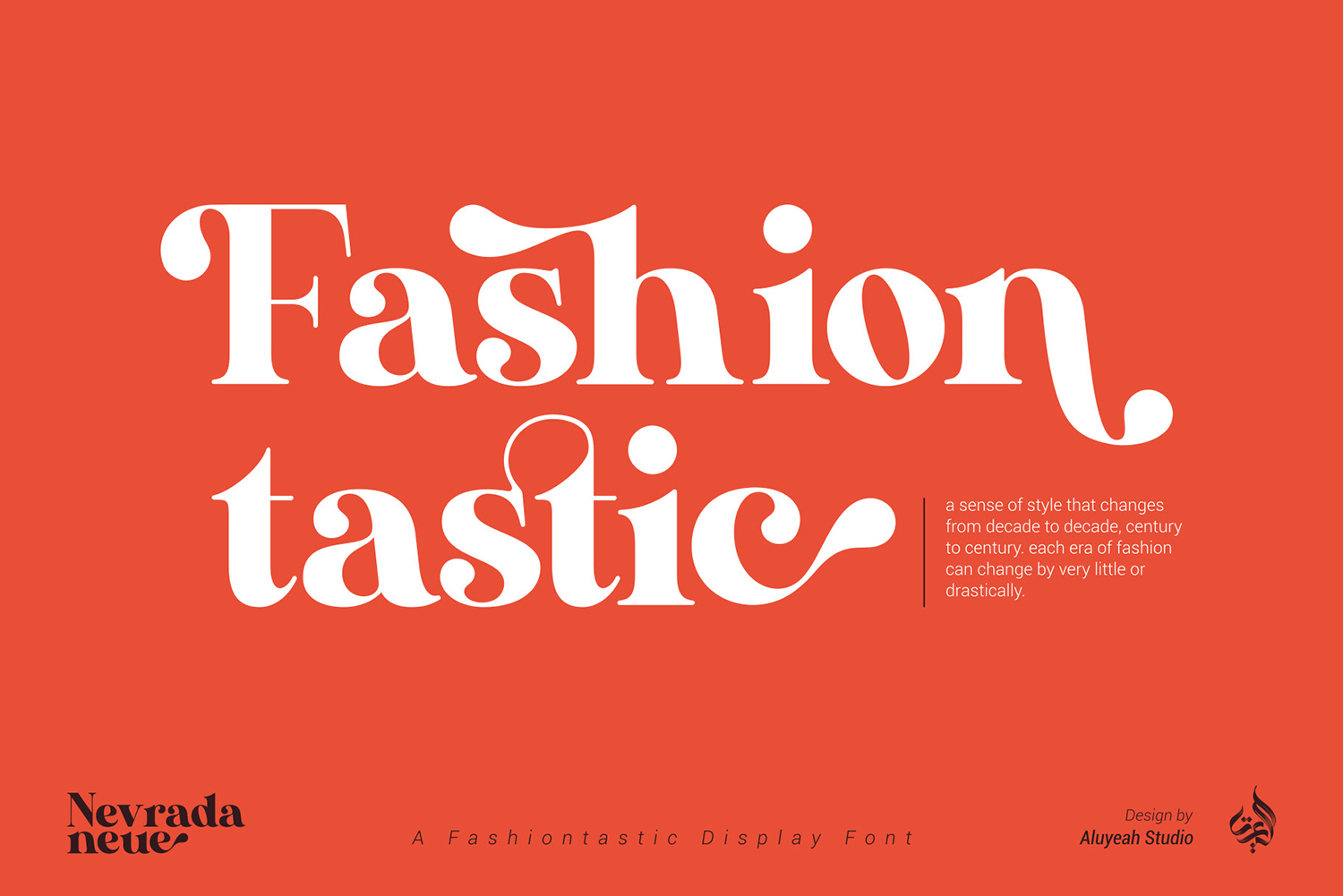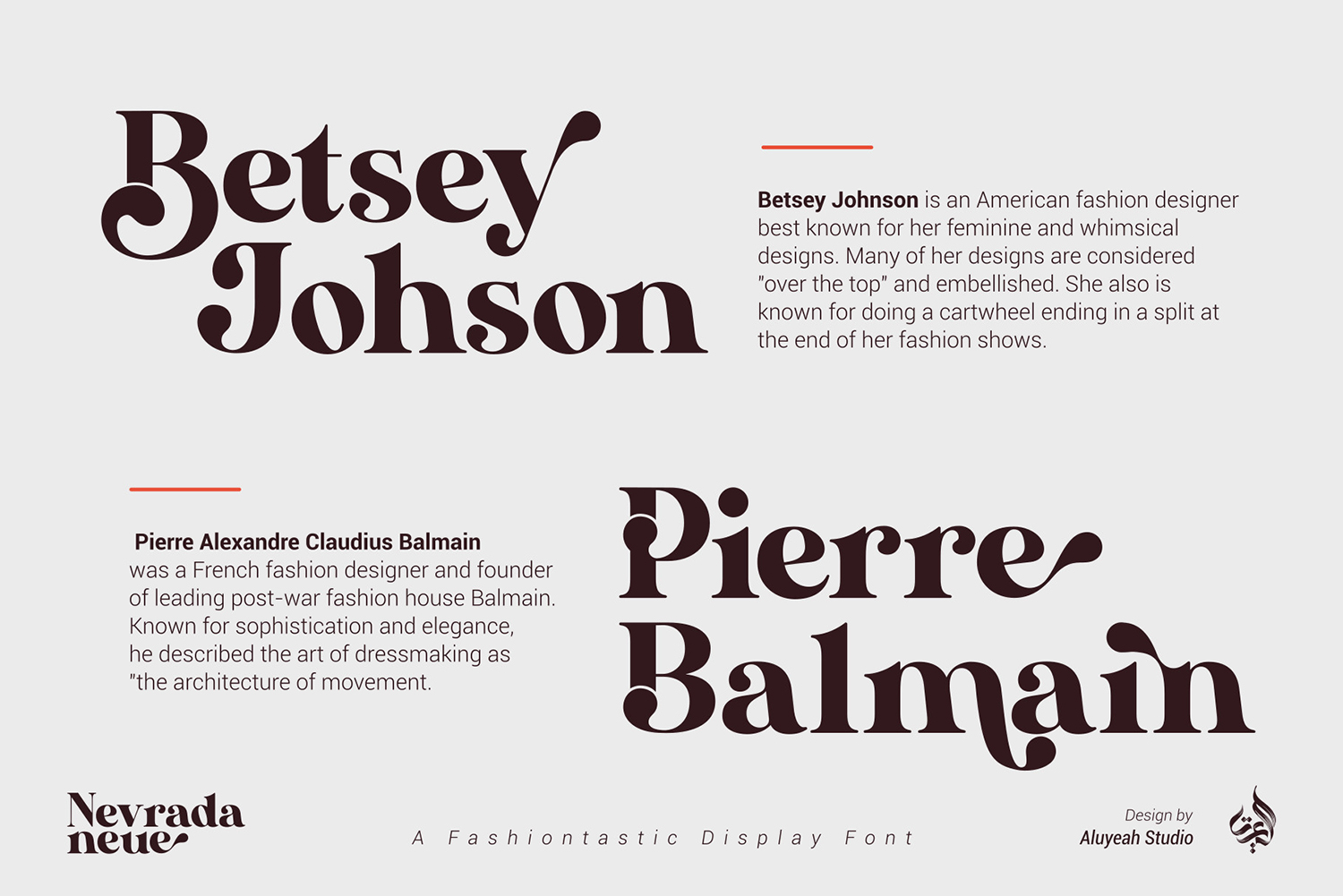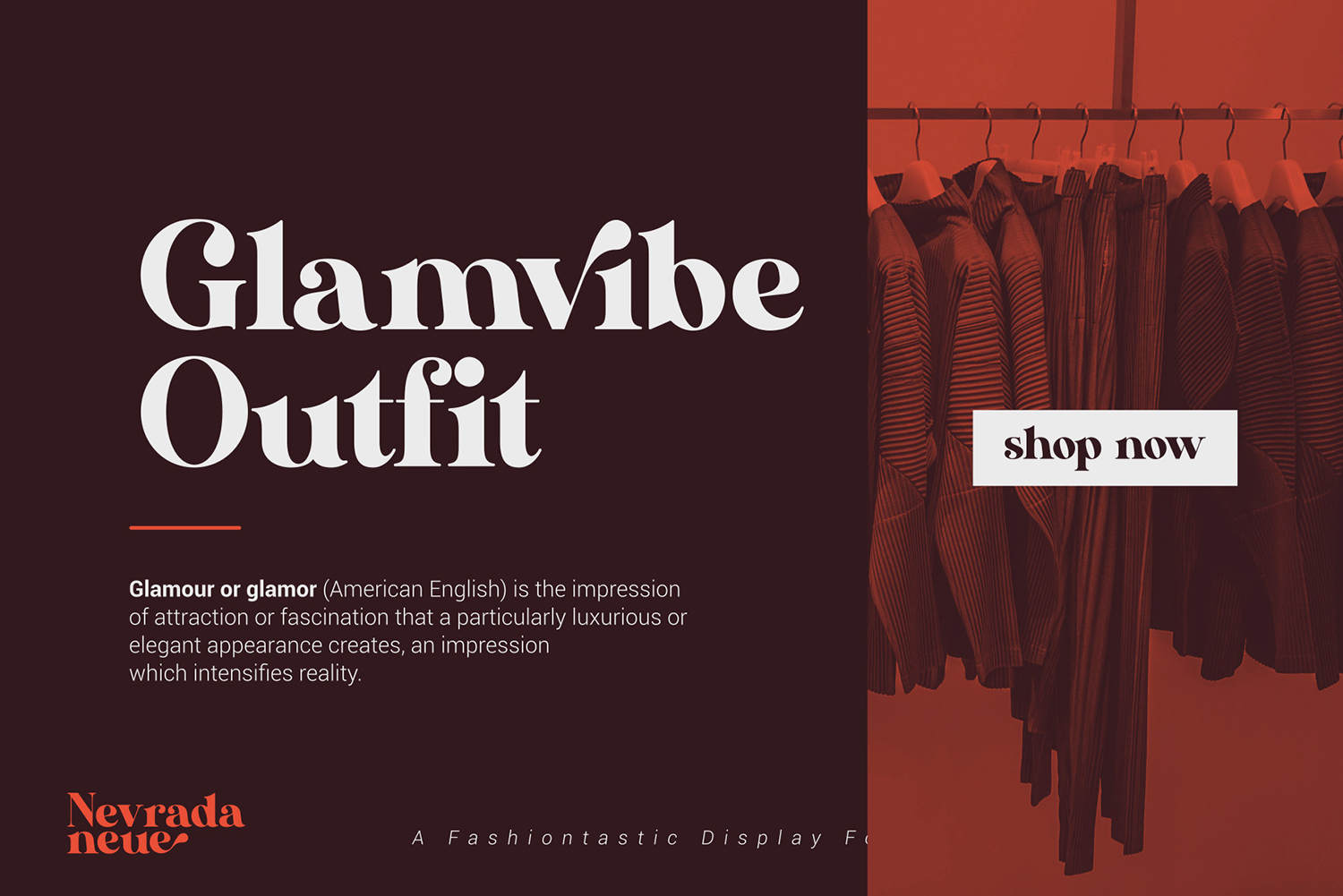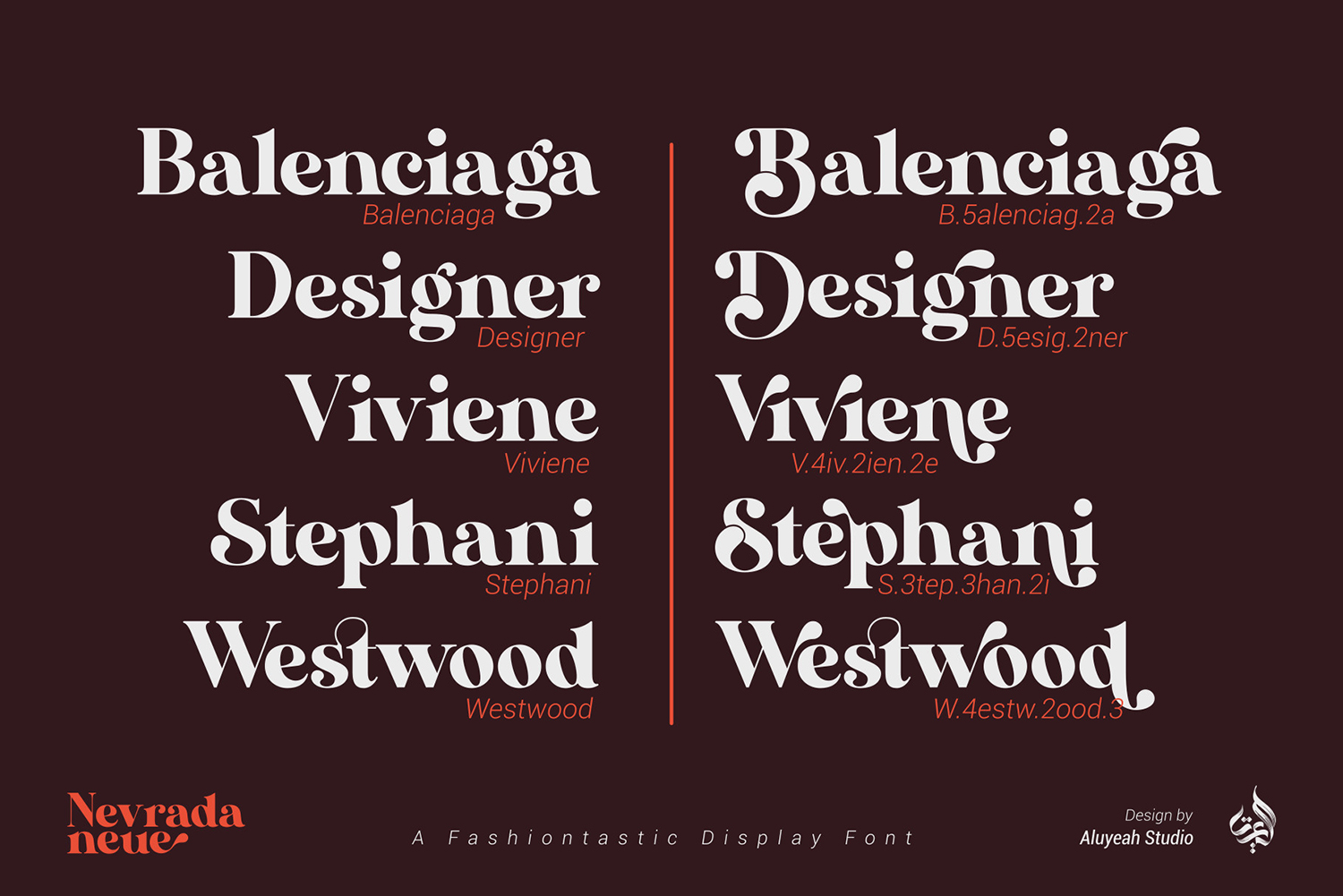
Nevrada Neue Free Font
Nevrada Neue Free Font is a fashiontastic display font. This font was carefully crafted from bestseller font Nevrada and inspired by one of the leading fashion brands in the world. In general, it creates a luxurious and elegant look in design. This free typeface was designed by a talented Aluyeah. If you like it don’t forget to check out the full version.